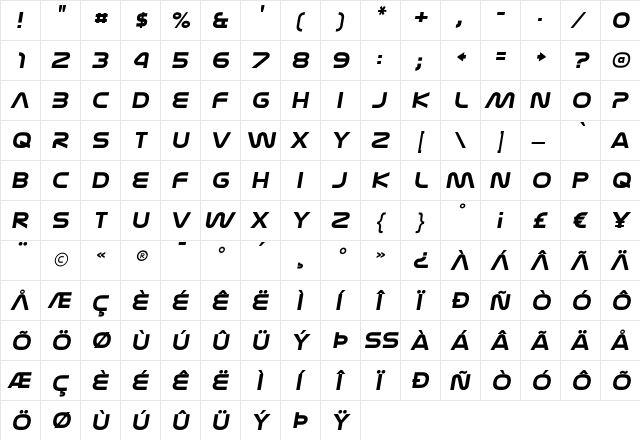
Nasalization Extended Bold Italic Font Preview
Design Context for Nasalization Extended Typeface
Nasalization Extended takes a measured approach to typography — its balanced proportions and neutral character make it a reliable workhorse for both digital and print work. Its italic angle brings a sense of urgency and motion to the letterforms. Its bold stroke weight gives it real presence on the page.
Pro Tip: Try Nasalization Extended for annotation and caption copy alongside an upright companion — the contrast in angle creates a dynamic but ordered typographic system.